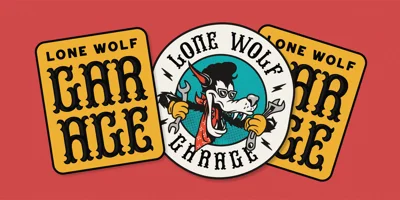
Noseig Font is ideal for experimental design projects, avant-garde art exhibitions, creative studio branding, innovative tech startups, modern artistic publications, conceptual advertising campaigns, and forward-thinking digital interfaces.
What makes Noseig Font exciting is its unique character and artistic innovation, featuring distinctive letterforms that challenge conventional typography while delivering exceptional visual impact and creative authenticity.
The Noseig Font family includes Light, Regular, Medium, Bold, and Black weights, plus experimental variants and artistic alternates that enhance the font's creative character and design possibilities.
Noseig Font represents a bold exploration into the future of typographic expression and creative design innovation. This groundbreaking typeface pushes the boundaries of conventional letter construction, creating a unique visual language that speaks to audiences who appreciate artistic experimentation, creative risk-taking, and innovative design approaches. The font's distinctive character and experimental appearance make it perfect for creative agencies, artistic projects, and innovative brands that want to communicate originality, creative courage, and cutting-edge design thinking.
Creative professionals and experimental designers consistently choose Noseig Font for projects that require artistic authenticity and innovative visual impact. The typeface's unconventional construction and creative personality make it exceptionally effective for art galleries, design studios, and creative organizations where artistic expression and design innovation are paramount. Each character has been crafted with artistic vision to ensure memorable impact across all creative applications and experimental environments.
The artistic advantages of Noseig Font extend beyond its experimental appeal to include practical functionality for contemporary creative applications. The font maintains strong readability despite its unconventional design while delivering the distinctive character that sets innovative projects apart from conventional design solutions. Its comprehensive character set includes artistic symbols and creative elements that make it particularly suitable for experimental documentation and artistic communication.
Art galleries, creative agencies, and innovation-focused organizations frequently incorporate Noseig Font into their brand identity systems because of its ability to instantly convey artistic credibility and creative innovation. The typeface's experimental aesthetic helps establish recognition in competitive creative markets while appealing to audiences who value originality, artistic expression, and the bold creativity that comes from challenging established design conventions and exploring new creative territories.